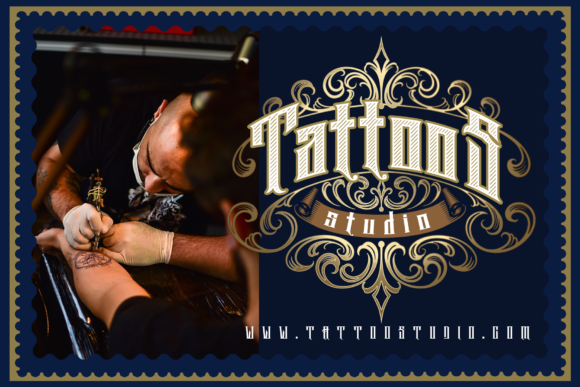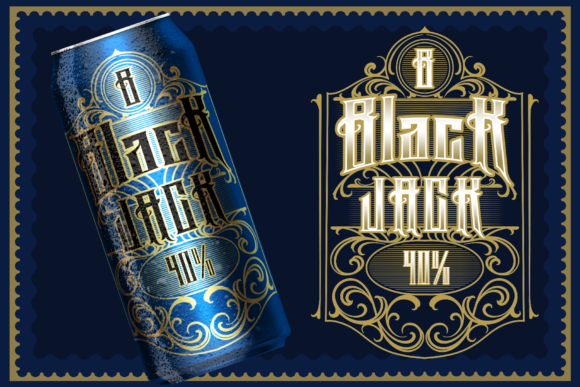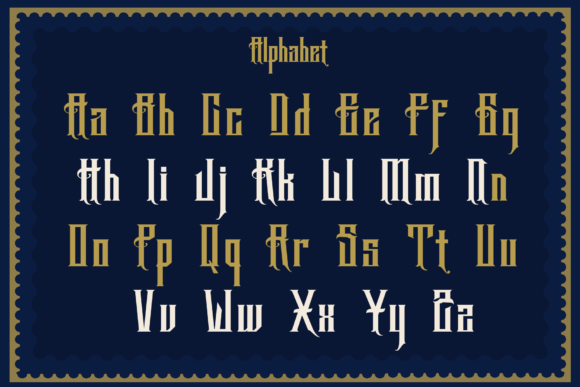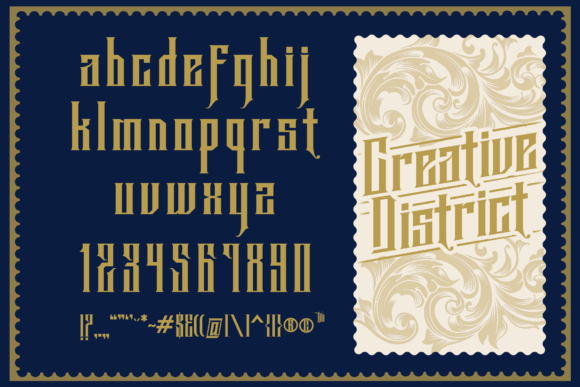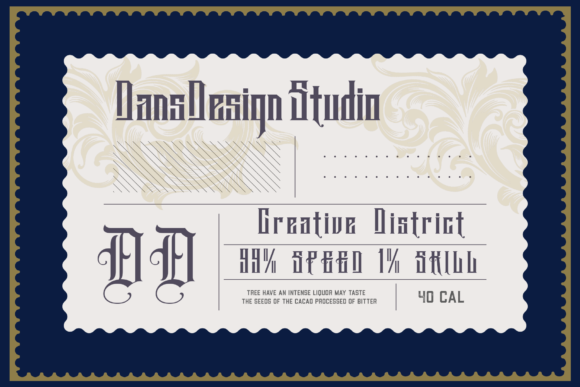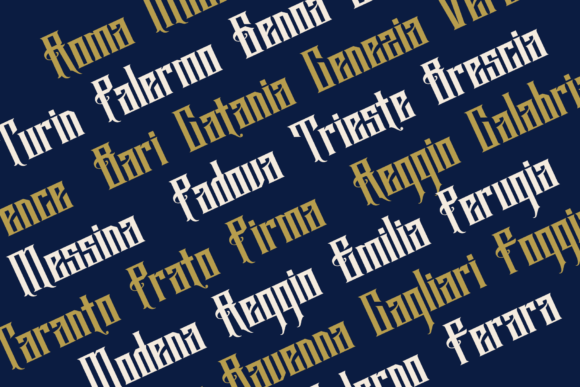
The GreatValey Font: A Bold and Elegant Blackletter Addition to Your Library
I’ll never forget the design project that led me to discover the GreatValey font. I was working on a branding campaign for a luxury goods company, and I needed a font that would convey a sense of sophistication and elegance. After hours of scouring font libraries and testing different options, I stumbled upon GreatValey – a bold, distinct, and elegant blackletter font that perfectly captured the essence of the brand. In this article, I’ll share my experience with GreatValey, its features, and how to make the most of it in your designs.
An Honest Review of GreatValey
- ✨ Highly detailed and neatly crafted design: GreatValey’s intricate details and precise lines make it a standout font that’s sure to elevate your designs.
- ✅ Versatility: Whether you’re working on a luxury brand, a Gothic-inspired project, or a modern design, GreatValey adapts seamlessly to different styles and themes.
- 💯 Excellent for headlines and titles: GreatValey’s bold and elegant design makes it perfect for grabbing attention and adding a touch of sophistication to your headings.
While GreatValey is an exceptional font, there are a few things to keep in mind:
- 🤔 Legibility at small sizes: As with many blackletter fonts, GreatValey can become difficult to read at very small sizes. It’s best used for headlines, titles, or larger text.
- ⚠️ Limited use in body text: Due to its intricate design, GreatValey may not be the best choice for lengthy body text. Stick to shorter paragraphs or use it sparingly to add emphasis.
The Designer Inspiration Behind GreatValey
GreatValey was designed with the goal of creating a bold, elegant, and highly detailed blackletter font that would meet the needs of designers and crafters. The font’s creator drew inspiration from traditional blackletter scripts, combining classic elements with modern touches to create a unique and versatile design.
| Font Name | Great Valey Font |
| Author | Dansdesign |
Q: What type of projects is GreatValey best suited for?
A: GreatValey is perfect for luxury brands, Gothic-inspired projects, and modern designs that require a bold and elegant font.
Q: Can I use GreatValey for body text?
A: While GreatValey can be used for short paragraphs, it’s best suited for headlines, titles, and larger text due to its intricate design.
Q: Does GreatValey support OpenType features?
A: Yes, GreatValey supports OpenType features, including stylistic alternates, ligatures, and glyphs.